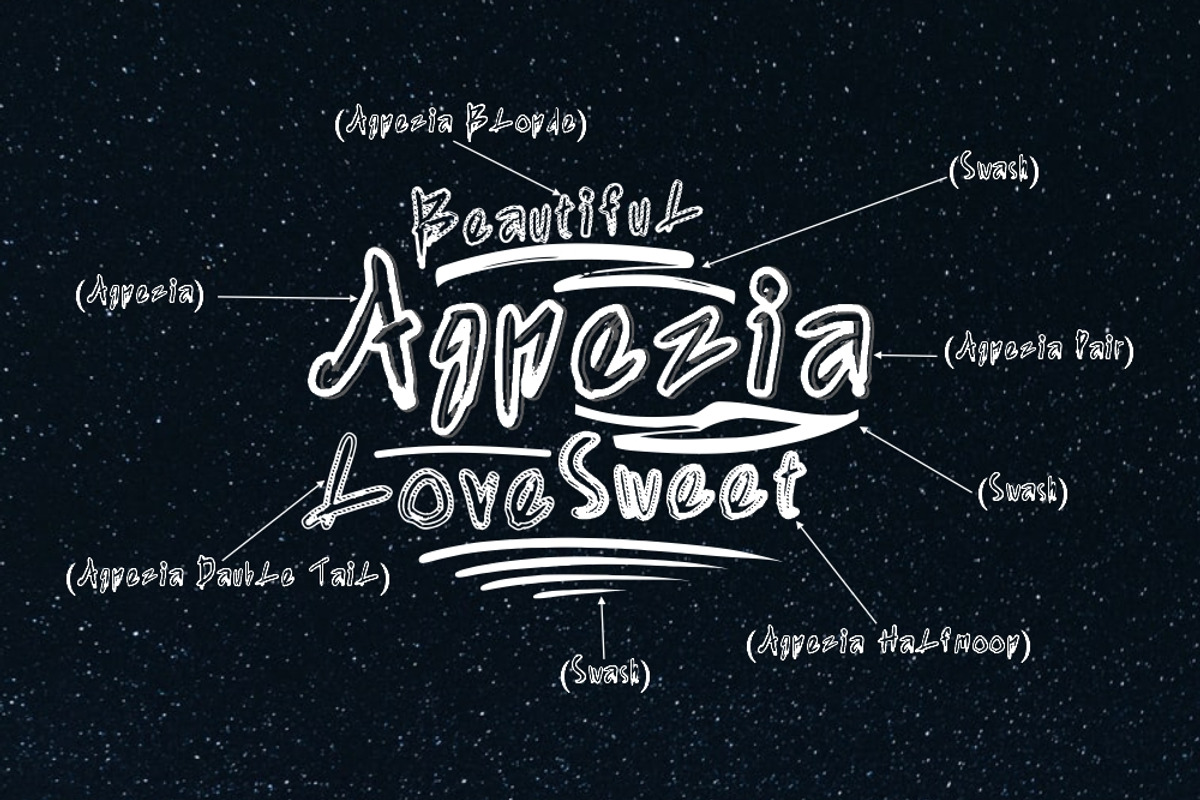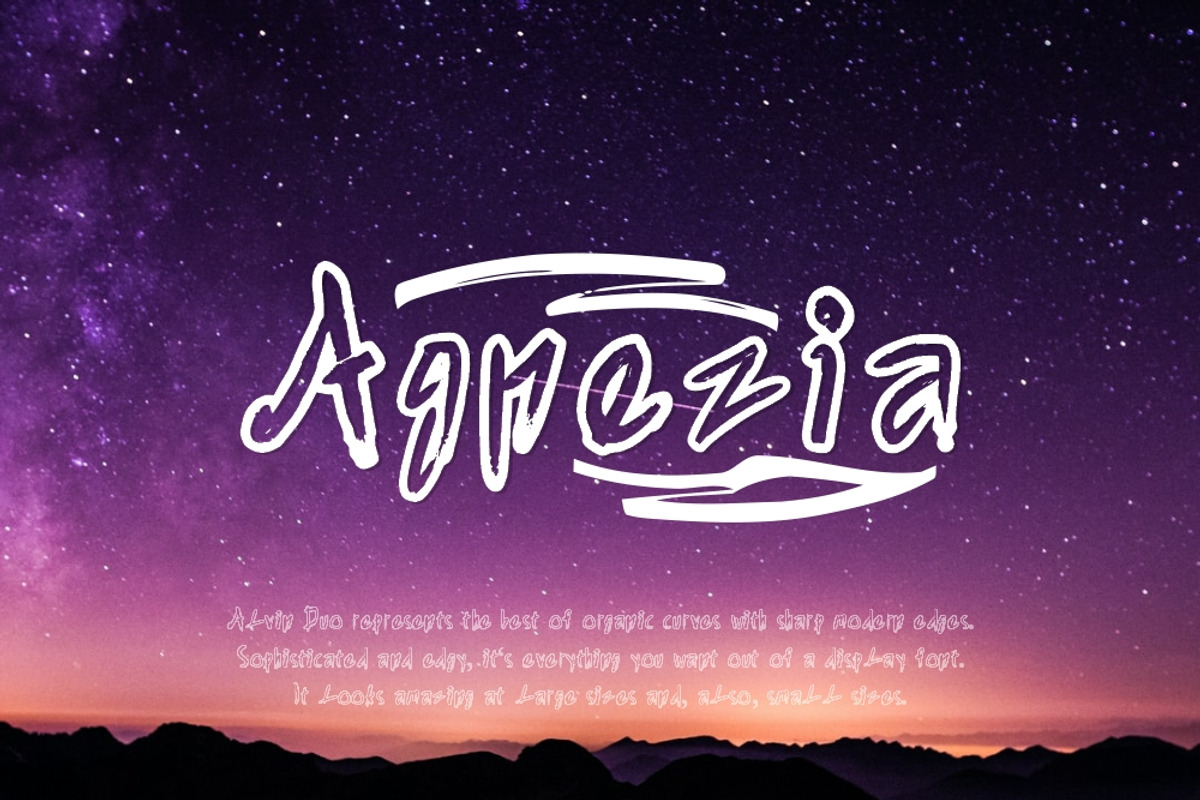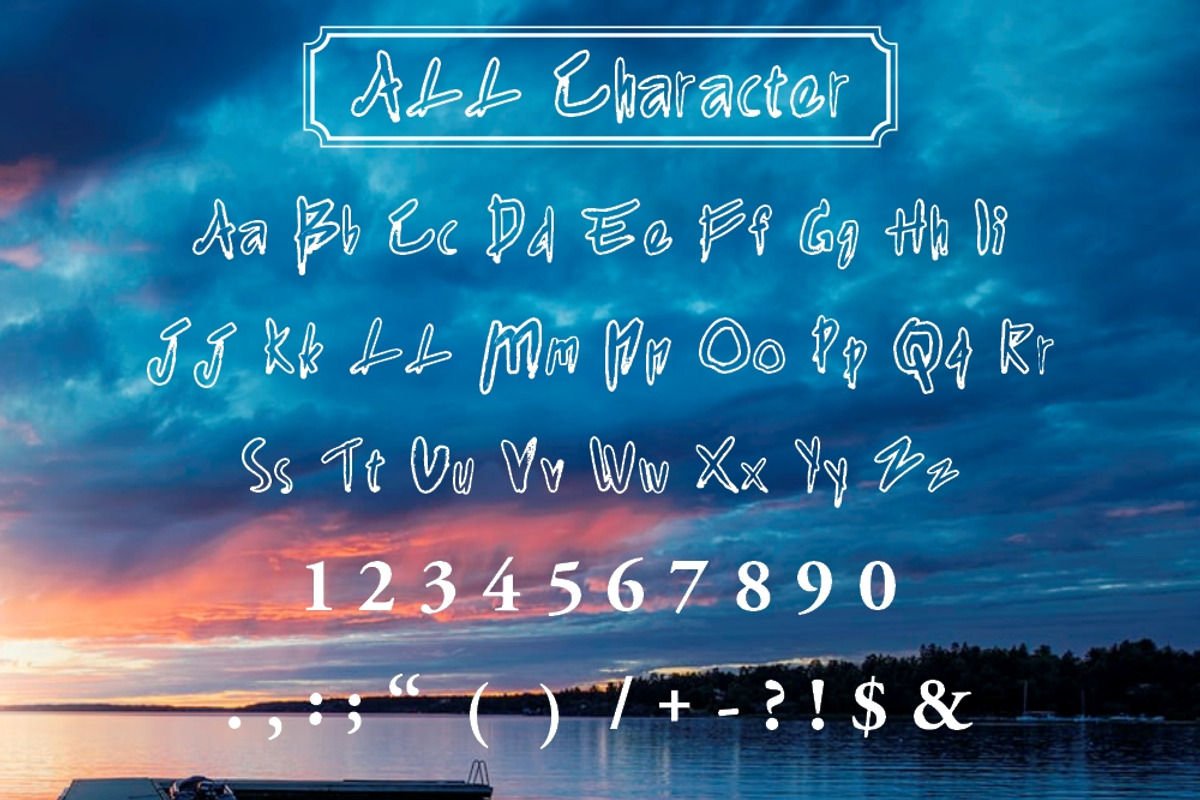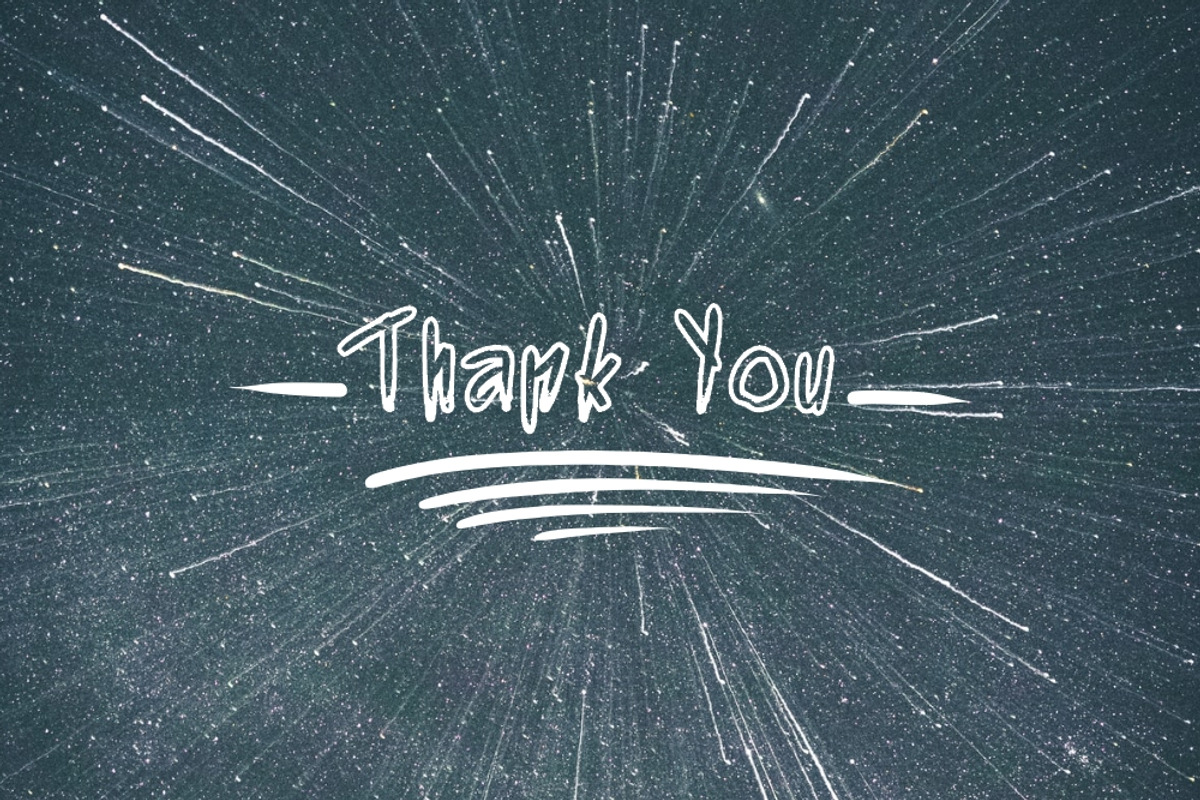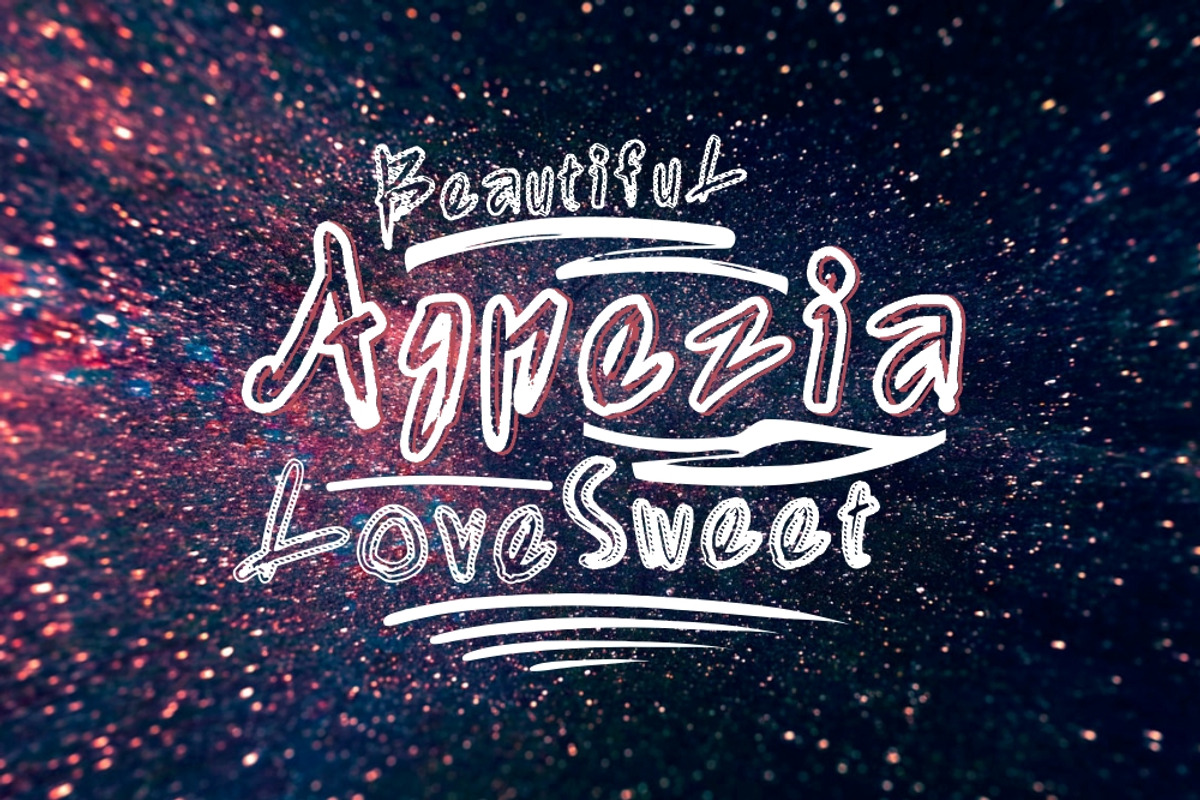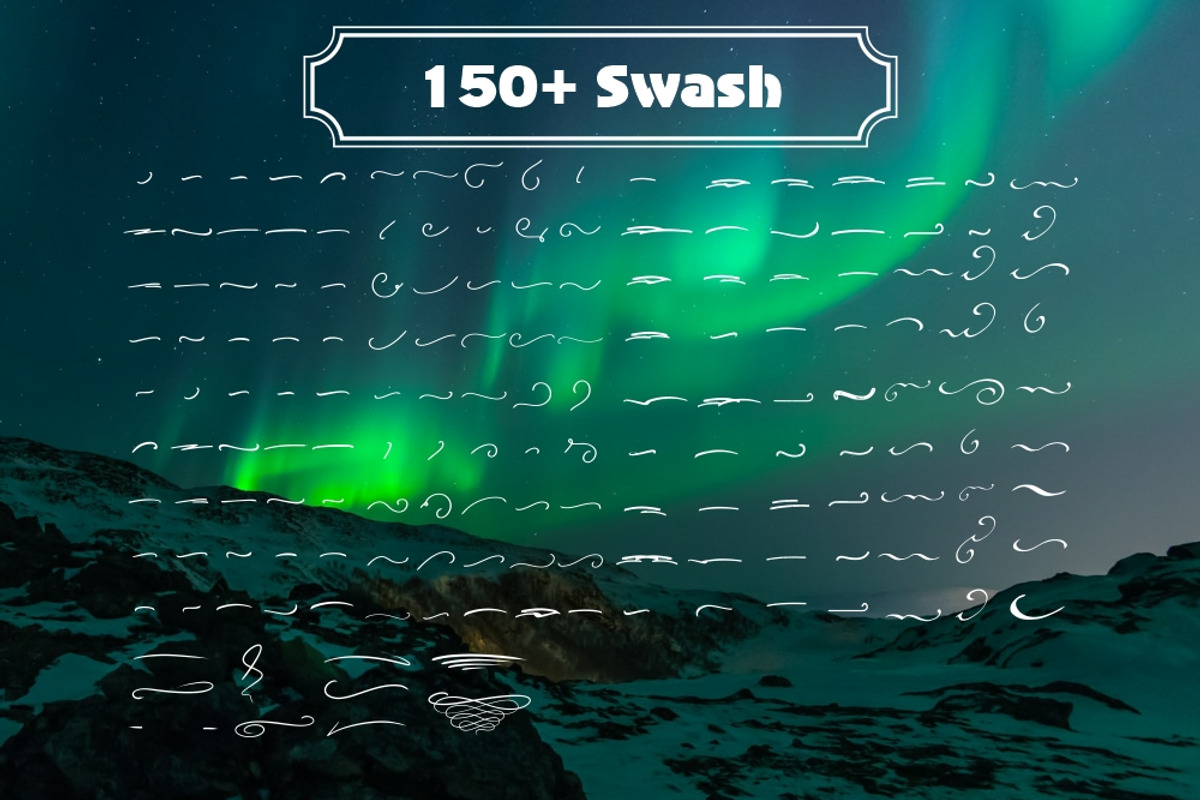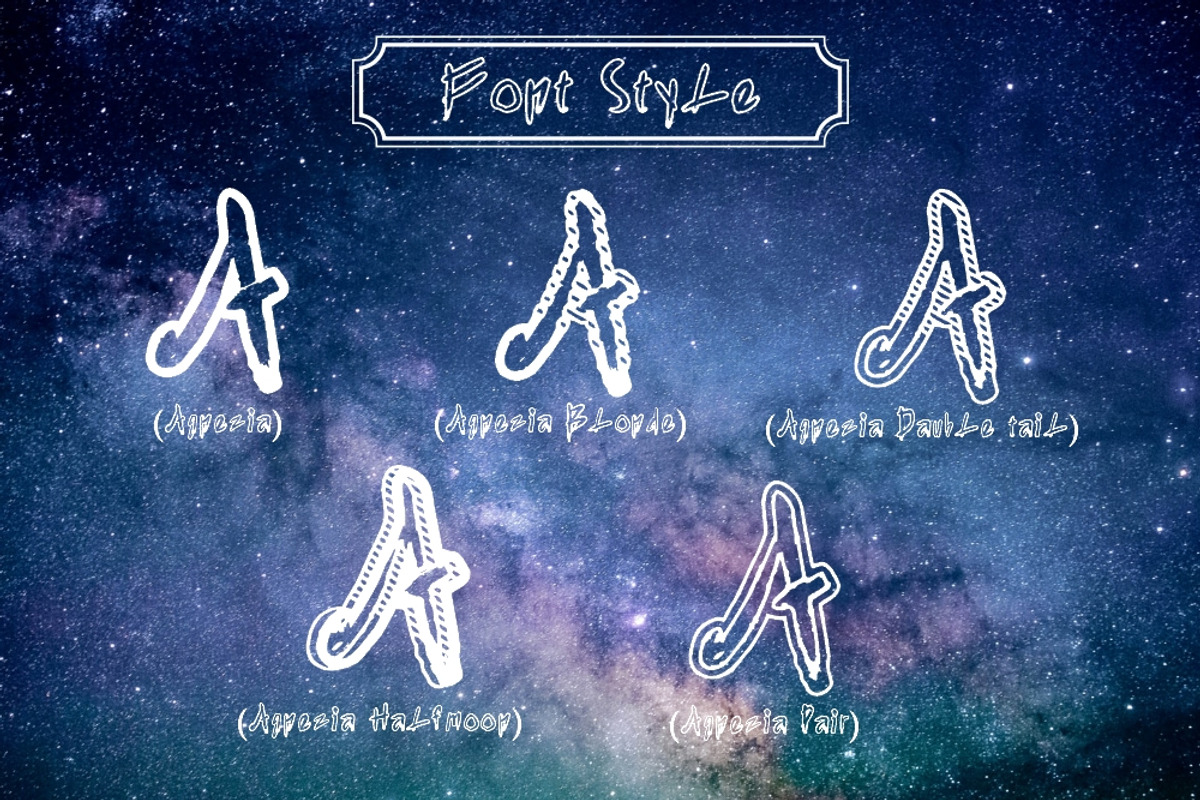
Agnezia - 5 Font styles
Agnezia - 5 Font styles and 150+ Swashes
Agnezia represents the best of organic curves with sharp modern edges. Sophisticated and edgy, it's everything you want out of a display font. It looks amazing at large sizes and, also, small sizes.
- Looks great packaged on wrapping, bottles and jars or digitally on websites, social and apps or printed on newspapers, magazines and flyers.
- Agnezia Regular
- Agnezia Blonde
- Agnezia Dauble Tail
- Agnezia Halfmoon
- Agnezia Pair